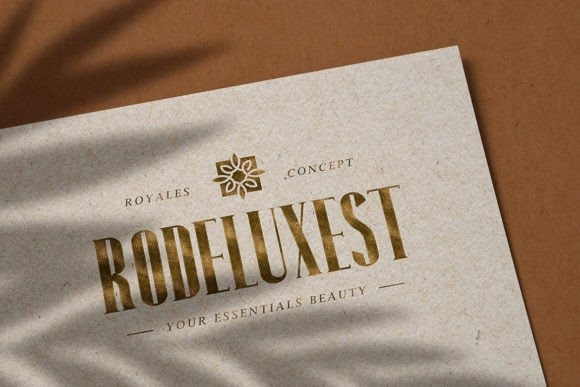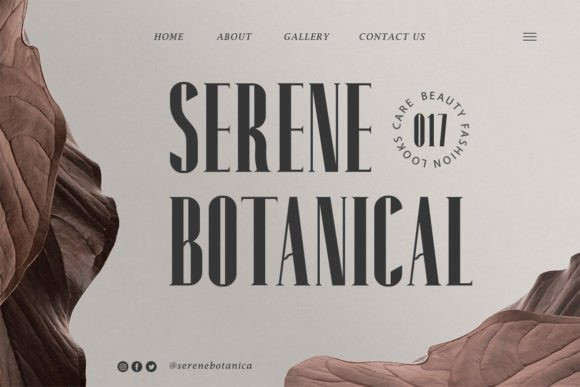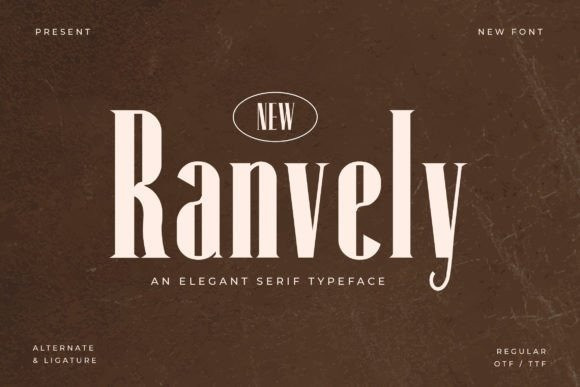
Ranvely Font
Ranvely Font  – an elegant serif typeface that exudes timeless charm and sophistication! With its graceful and refined letterforms, “Ranvely” brings a touch of classic beauty to any project. Each character is meticulously crafted to showcase a perfect balance of elegance and readability, making it ideal for luxurious branding, editorial layouts, wedding invitations, and more.